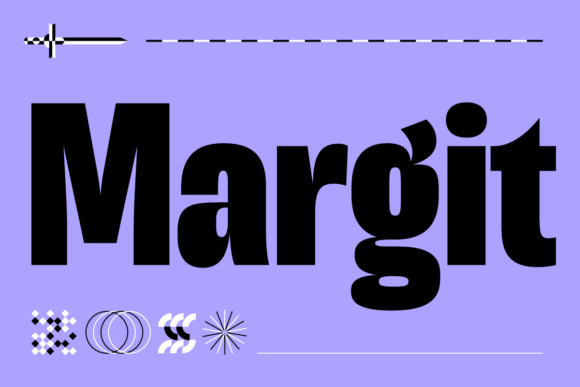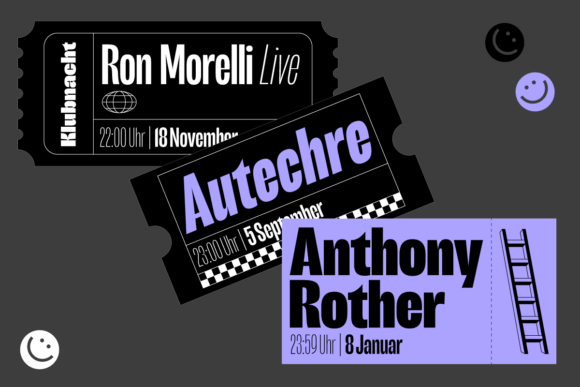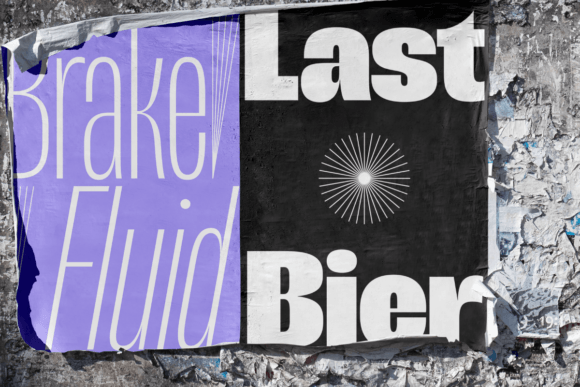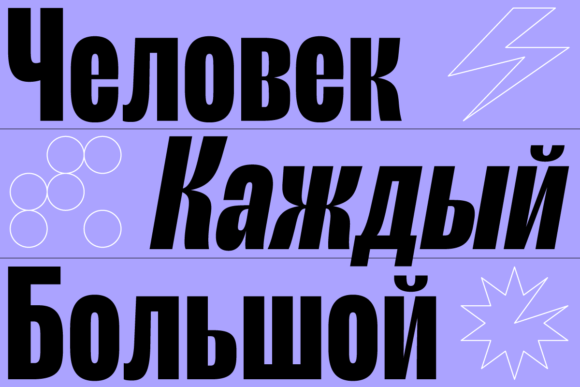
Margit Font: Bold Sans Serif for Modern Poster & Title Typography
About the Margit Font
The wait is over! The incredible Margit Font is now available for your design toolkit. Margit is a highly compressed sans serif font family, where more weight equals more width. Use Margit’s inventive and clear shapes for making your titles, posters, and brandings more expressive.
Margit’s bold, geometric forms excel in headlines, posters, and short impactful branding statements. Its high compression makes it unsuitable for body text or UI elements requiring high readability at smaller sizes. Long paragraphs set in Margit would be visually overwhelming and difficult to read.
The font’s strong personality pairs well with more delicate counterparts. Consider pairing Margit with a light, humanist sans-serif for a balanced contrast, or a classic serif like Garamond for a sophisticated feel. A script font could add a touch of elegance, but choose one with clean, unfussy forms to avoid visual clutter.
Margit projects a modern and confident image, ideal for brands seeking a strong, memorable visual identity. Its assertive character makes it a powerful choice for projects that demand attention.
Margit Font Usage Examples